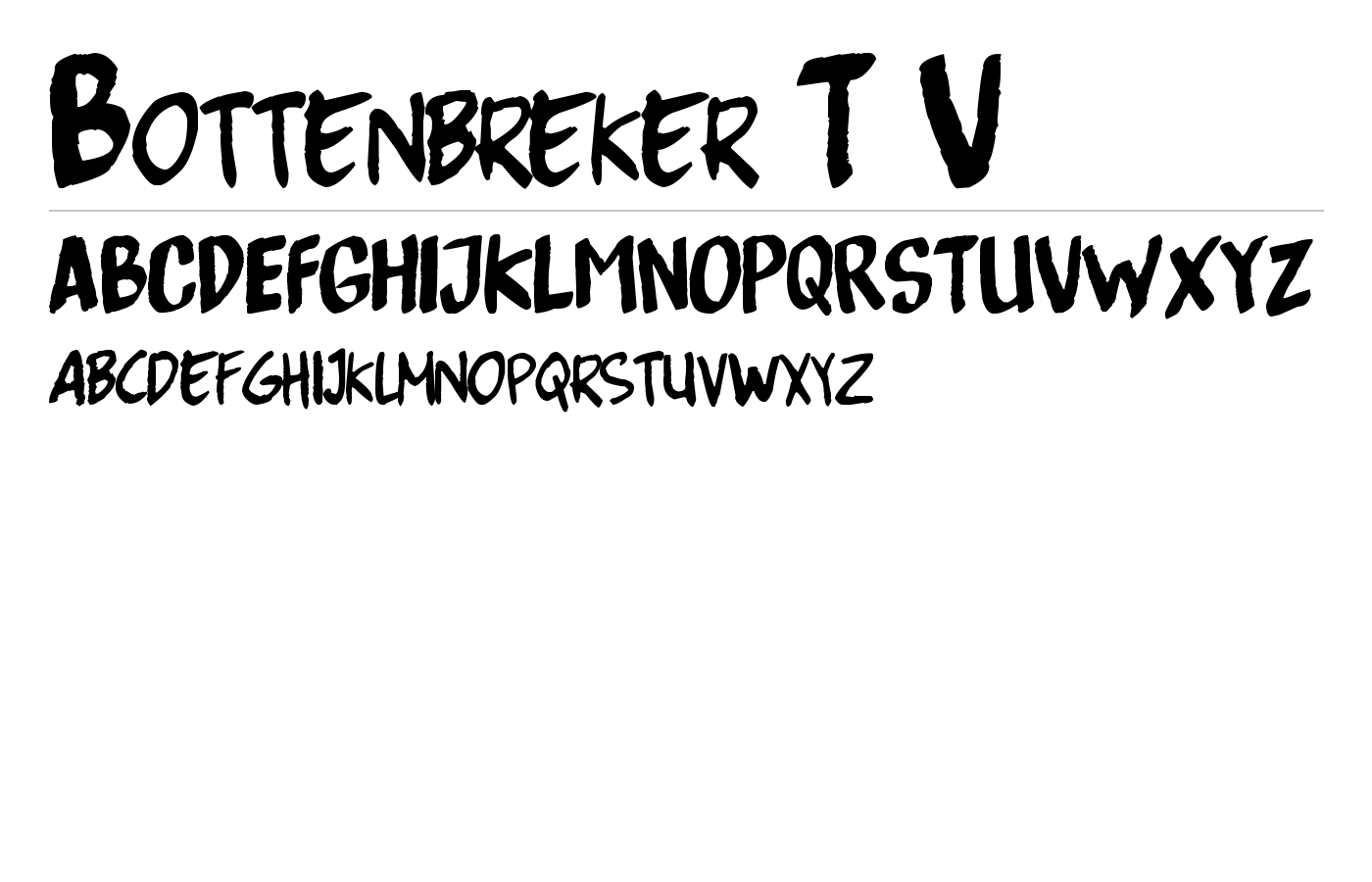
Bottenbreker T.V. is a bold, hand-drawn sans serif font that exudes energy and personality with its rough, brushstroke texture. Its irregular, dynamic letterforms and high contrast between thick and thin strokes give it a playful yet strong character, making it ideal for eye-catching headlines, posters, or branding that seeks a casual, artistic vibe. This font works well when you want to convey creativity and informality while maintaining clear readability.
Bottenbreker T.V. Font